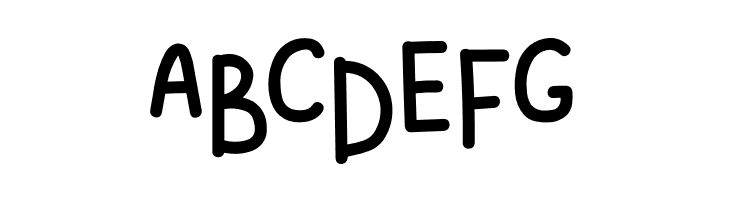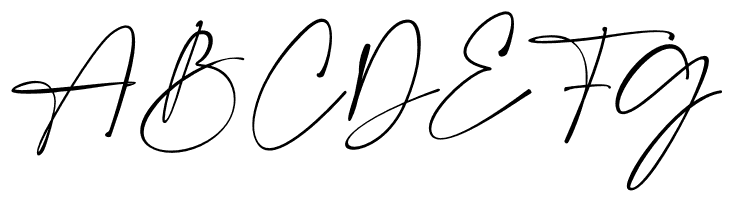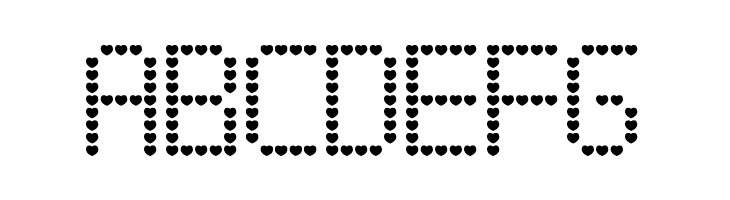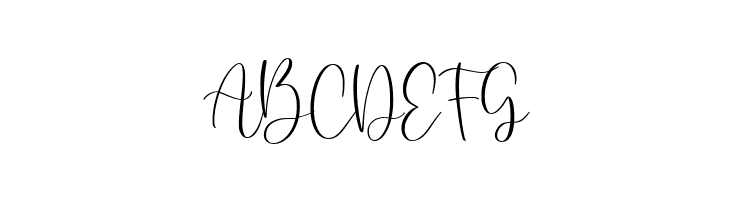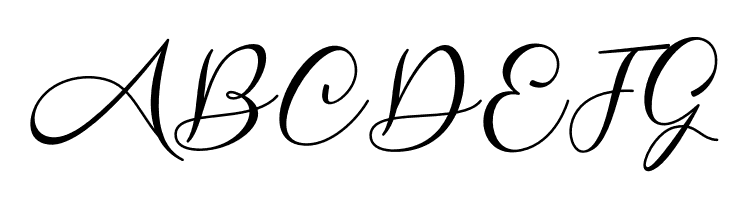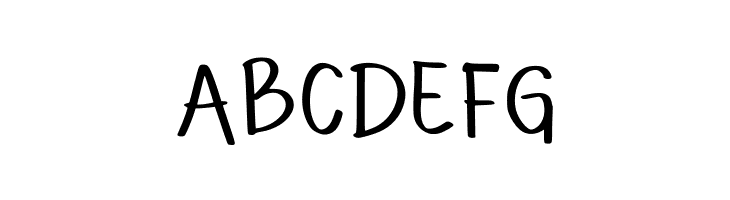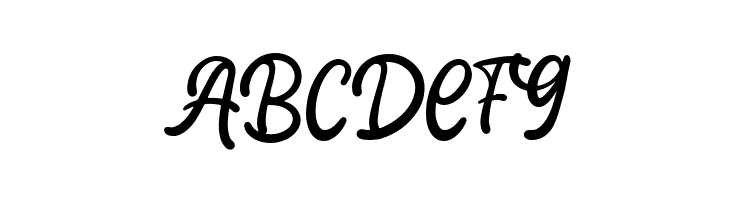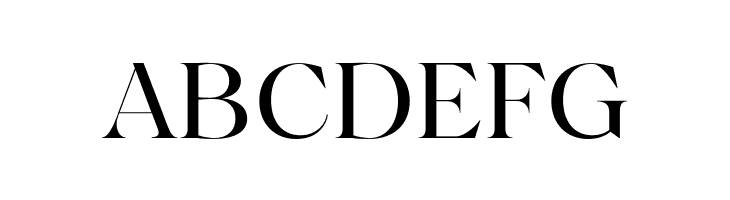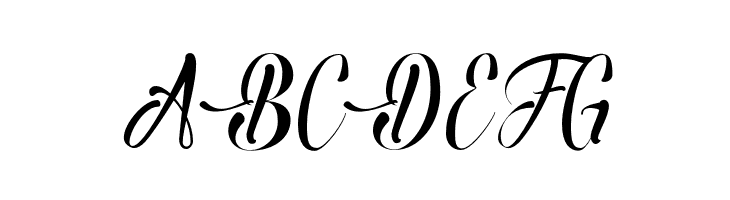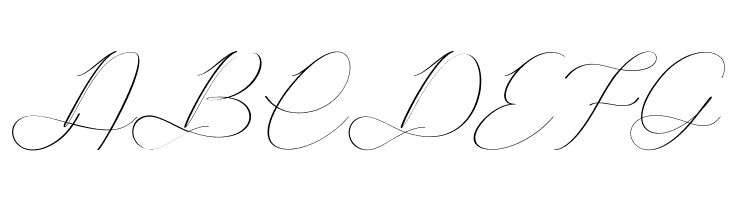
A bold and heavy typeface with strong, impactful strokes and rounded edges.
A bold, italic font with a dynamic and modern style.
A sleek, modern italic font with smooth, flowing lines and a dynamic slant.
A modern, light sans-serif font with clean lines and excellent readability.
A sleek, modern, light italic sans-serif font with a clean and professional look.
A sleek, modern thin italic typeface with balanced spacing and fluid design.
A bold, modern font with strong, geometric characters and minimal contrast.
A bold, italic font with strong, dynamic strokes and a powerful presence.
A modern, geometric sans-serif font with consistent stroke width and versatile applications.
A playful, hand-drawn font with a whimsical and informal style.
A bold, expressive script font with calligraphic flourishes.
A geometric sans-serif font with a clean, modern design and uniform stroke widths.
A geometric sans-serif font with uniform strokes and high legibility.
A bold, angular font with a modern, futuristic aesthetic.
A bold, dynamic brush script with expressive strokes and a hand-painted look.
A bold, expressive handwritten font with brush-like strokes and dynamic flow.
An elegant script font with flowing, cursive letters and intricate loops.
An elegant script font with flowing, interconnected letters and a refined appearance.
A bold, rounded font with a playful, retro 1990s aesthetic.
A bold, futuristic font with geometric and angular letterforms.
A bold, futuristic font with geometric and angular design.
A bold, italic, futuristic font with sharp, angular lines.
A bold, vintage-inspired font with a modern edge, perfect for impactful designs.
A bold, high-contrast serif font with a vintage yet modern style.
An elegant, high-contrast script font with flowing, interconnected letters.
A bold serif font with high contrast and a classic yet modern style.
A classic serif font with elegant curves and a calligraphic touch.
A semi-bold serif font with elegant curves and classic style.
A bold, playful handwritten font with rounded, consistent strokes.
A modern, geometric sans-serif font with clean lines and uniform width.
A modern, geometric font with uniform line thickness and rounded edges.
A flowing, cursive font with interconnected characters and elegant style.
A modern, italic sans-serif font with smooth curves and consistent stroke width.
A modern, geometric sans-serif typeface with uniform strokes and clear characters.